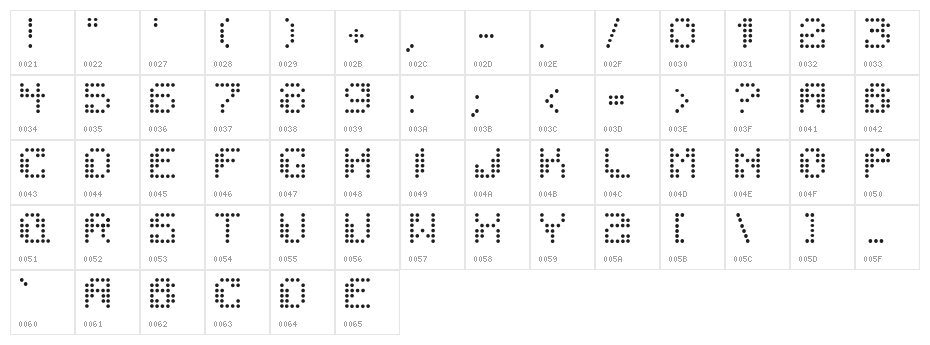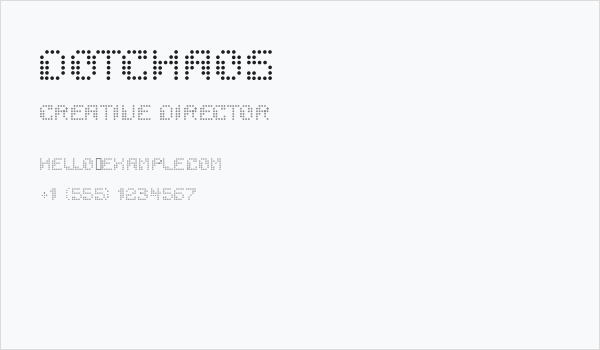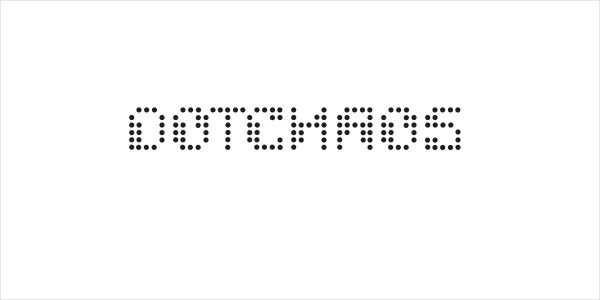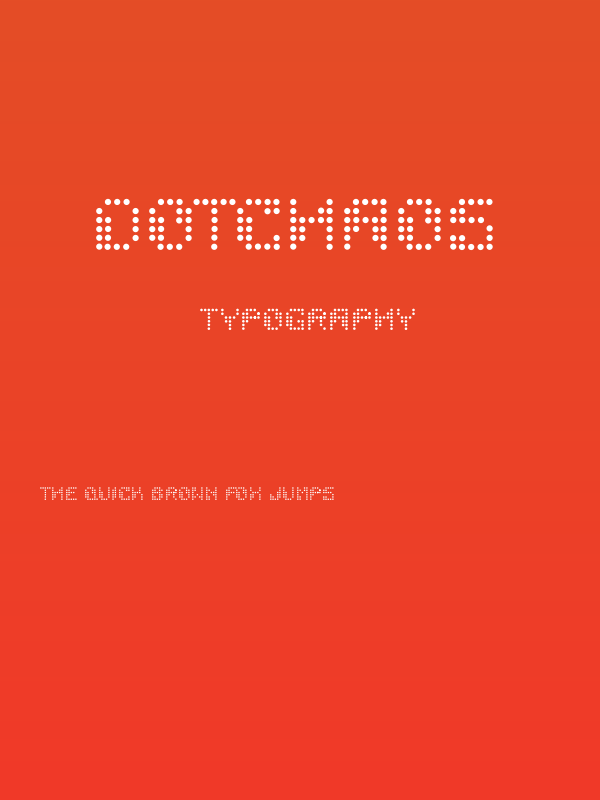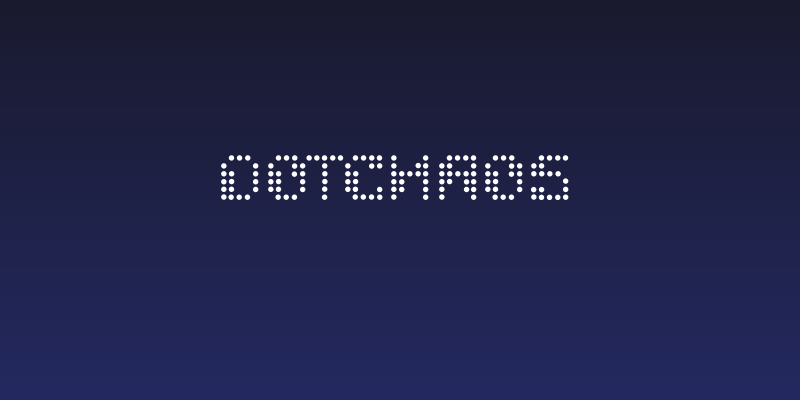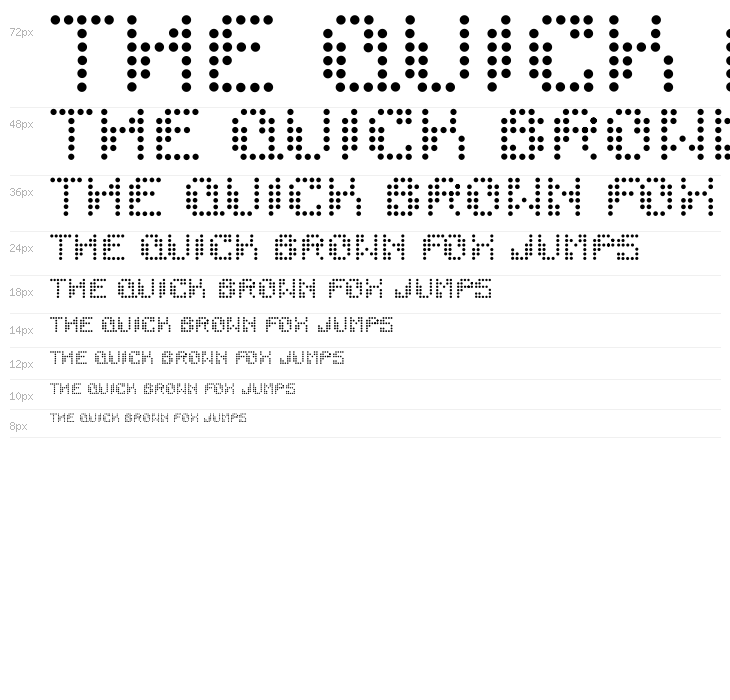
Dotchaos Font
Dotchaos Description
This font features a unique design composed entirely of dots, creating a digital and modern aesthetic. Each character is formed by a grid of dots, giving it a pixelated appearance that is both playful and futuristic. The uniformity of the dots provides a consistent texture across all characters, while the spacing between the dots ensures readability. This font is ideal for projects that require a distinctive and eye-catching look, such as digital displays, tech-themed designs, or creative branding. The geometric nature of the font adds a structured yet dynamic feel, making it suitable for a variety of applications.
| Proposed Projects | Digital displays, tech-themed designs, creative branding, modern art projects. |